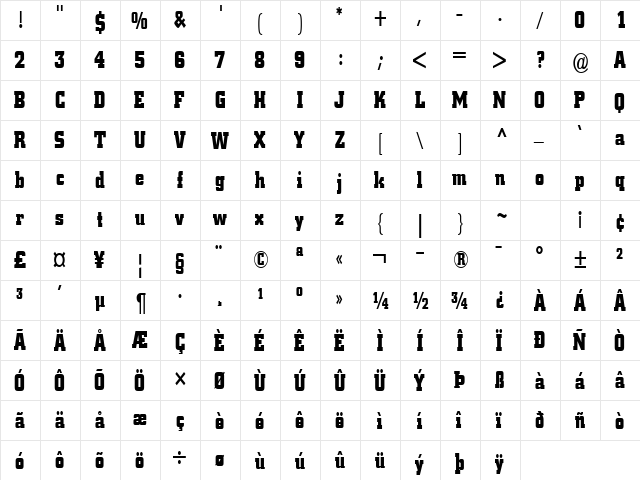
Borghs-Condensed Normal
Design Context for Borghs-Condensed Typeface
Borghs-Condensed is a composed and adaptable typeface that performs quietly and consistently across a wide range of design contexts. The condensed width makes it efficient for tight spaces without sacrificing legibility.